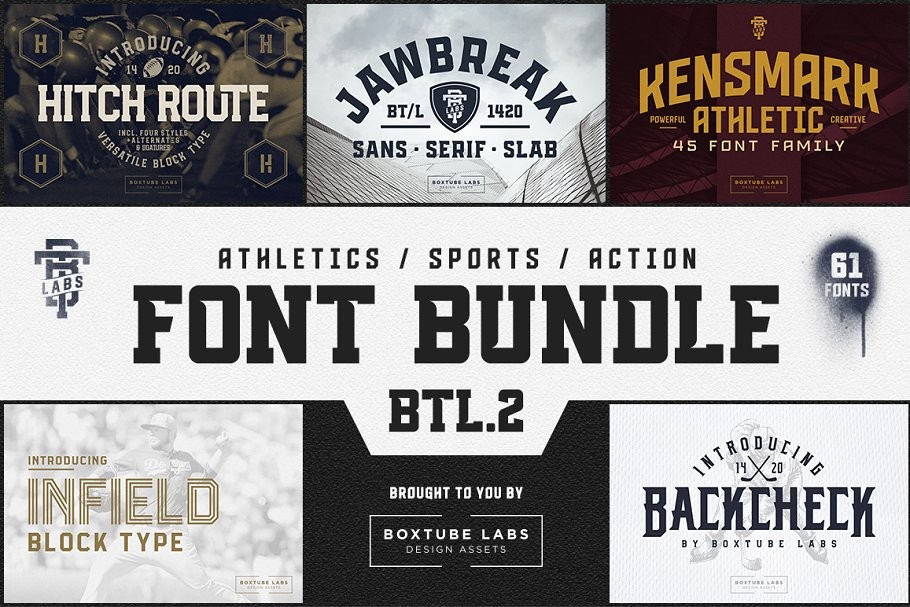
BoxTube Labs presents the Sports Font Bundle BTL.2 - a collection of five sporty and athletic type families with a total of 61 unique fonts. This bundle features strong, confident and powerful typefaces designed to work great with sports logos, club branding, apparel applications, labels and more, including our top sellers Jawbreak and Hitch Route.